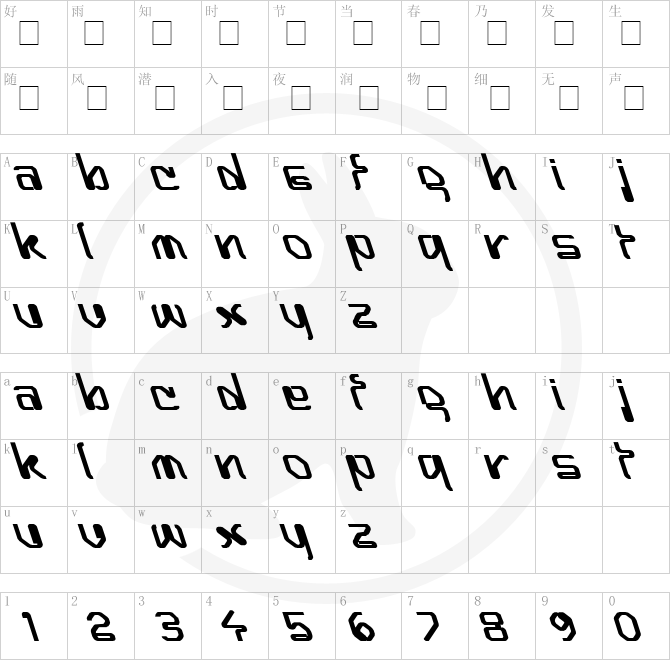
- Font Name:Hairpin-Pushed to The Left
Hairpin-Pushed-to-The-Left-Bold.ttf is a very beautiful artistic font, Hairpin-Pushed-to-The-Left-Bold.ttf is widely used in the design and printing of various books and pictures,Hairpin-Pushed-to-The-Left-Bold.ttf has a strong visual impact,Hairpin-Pushed-to-The-Left-Bold.ttf is a commonly used font in newspapers, magazines and books, and is used in posters, e-commerce Poster design, store design, logo design, font design and other fields.Hairpin-Pushed-to-The-Left-Bold.